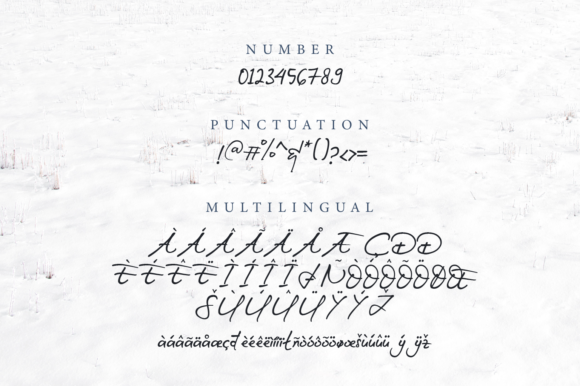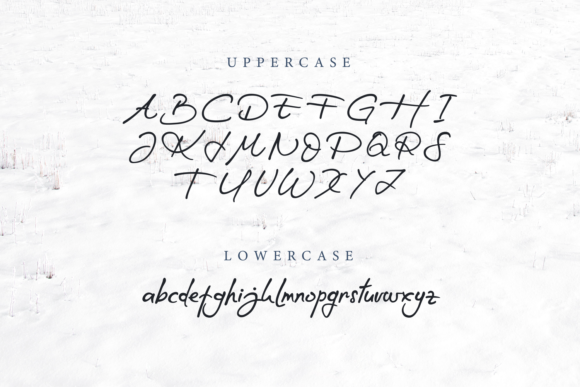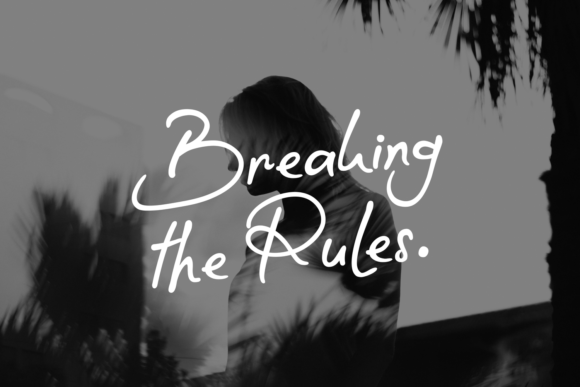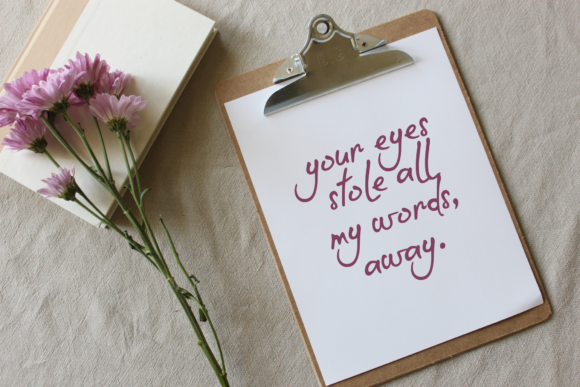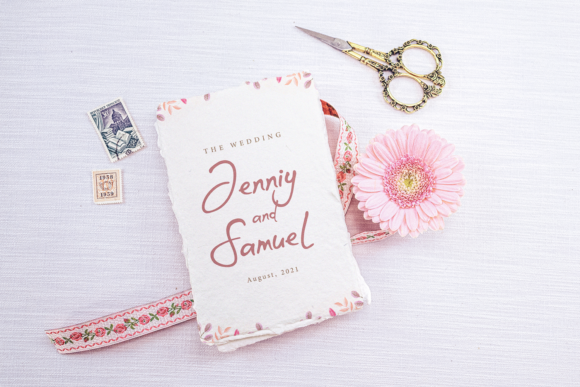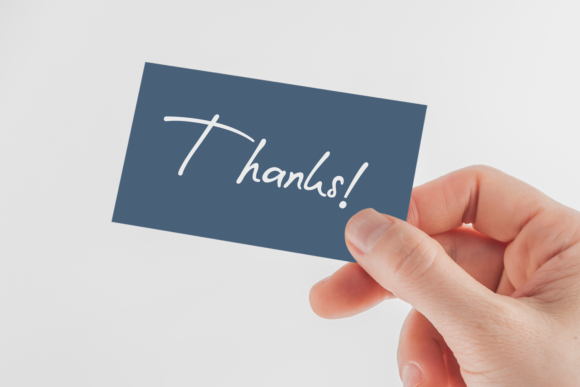
Introduction to Kilimanjaroku Font
Have you ever stumbled upon the perfect font that elevates your design to the next level? For many designers, this moment is a game-changer. For me, it was when I discovered the Kilimanjaroku Font – a chic, refined script font that exudes sophistication and elegance.
Imagine a design project where every word, every letter, and every symbol seems to come together in perfect harmony. That’s what the Kilimanjaroku Font can bring to your creative endeavors. With its stylish alternates and ligatures, this high-quality design resource is the perfect match for any project that demands a touch of class.
Kilimanjaroku Font
- Unique, stylish design that can add a touch of sophistication to any creative project
Honest Review: Kilimanjaroku Font
Upon closer inspection, I was impressed with the Kilimanjaroku Font’s clean and modern aesthetic. The transparent background makes it easy to use in various design contexts. ✨ One of the standout features of this font is its versatility – it works well for both digital and print designs.
The font’s high-quality design makes it perfect for creating engaging headlines, titles, and even body text. It’s also a great choice for designers looking to add a touch of sophistication to their projects.
- Perfect for digital and print designs
- May not be suitable for highly complex or detailed designs
- Some users may find the font’s modern aesthetic too minimalist
- ⚠️ Limited font variations (only a few weights available)
Overall, the Kilimanjaroku Font is a solid addition to any designer’s toolkit. While it may have some limitations, its high-quality design and versatility make it a great choice for a wide range of creative projects.
Tips for Getting the Most Out of Kilimanjaroku Font
Experiment with different font sizes and styles to create a visually appealing design. Use the transparent background feature to create a seamless integration with your background image.
The Kilimanjaroku Font is ideal for use in creative projects such as logos, branding materials, and social media graphics. Its high-quality design and transparent background make it a versatile design resource for any project.